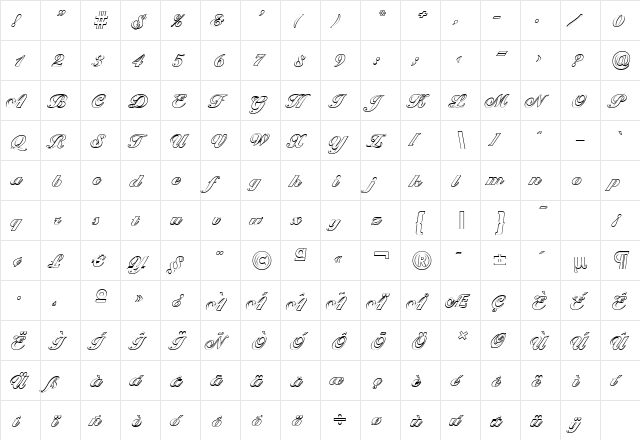
BallantinesOutline-Black Regular
Design Context for BallantinesOutline-Black Typeface
BallantinesOutline-Black is built around its visual character rather than neutral utility — its distinctive forms are designed to make an impression at display sizes.
Font Pairing: Pair with a clean neutral sans-serif for body copy to let BallantinesOutline-Black's character lead without overwhelming the composition.
Pro Tip: Use BallantinesOutline-Black exclusively at display sizes — it was designed to be seen, not read at length. Let a neutral companion handle body copy.